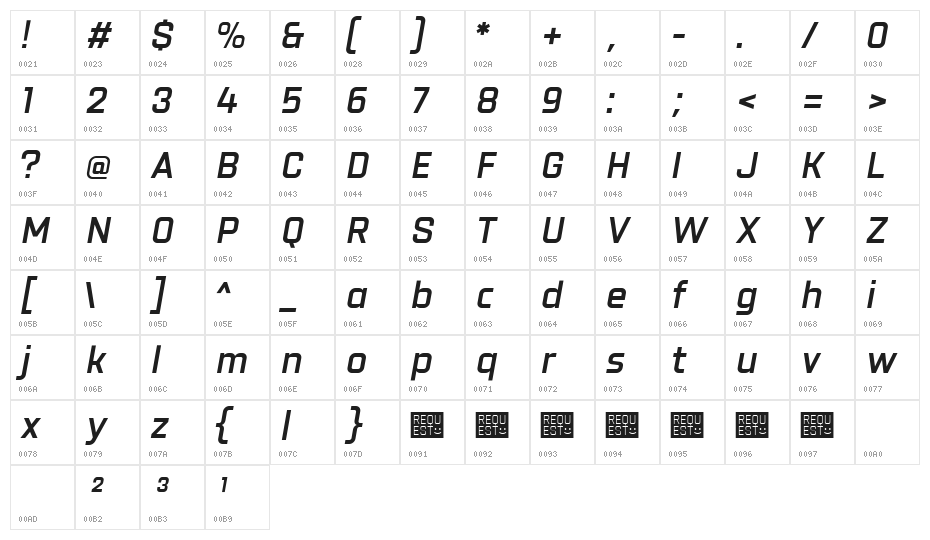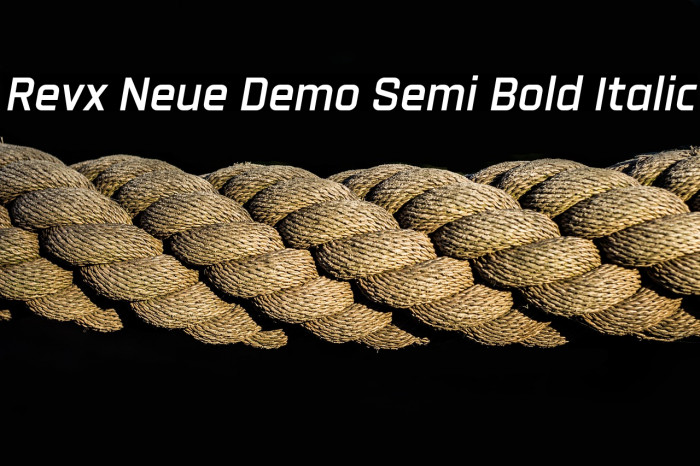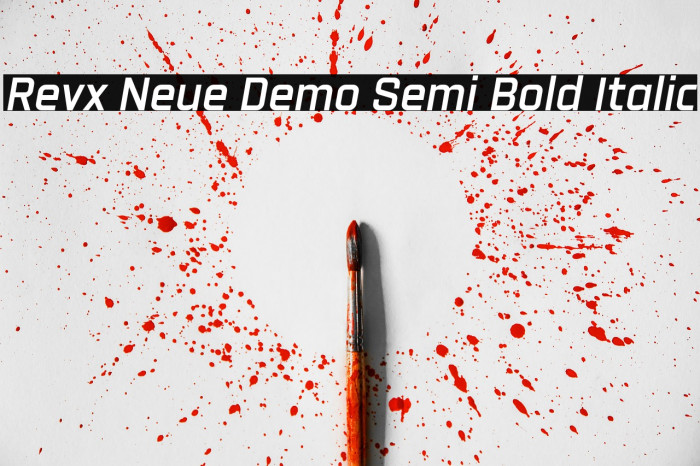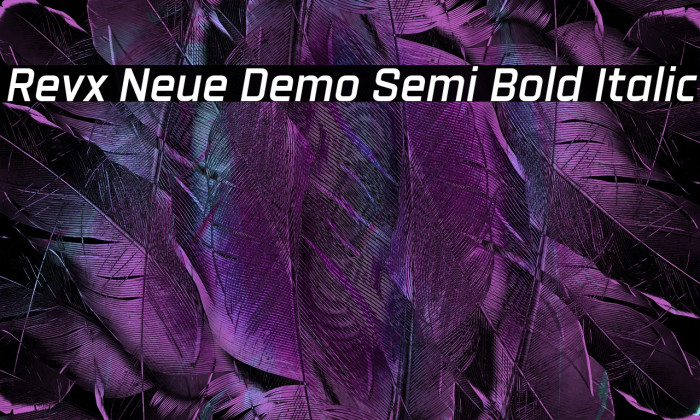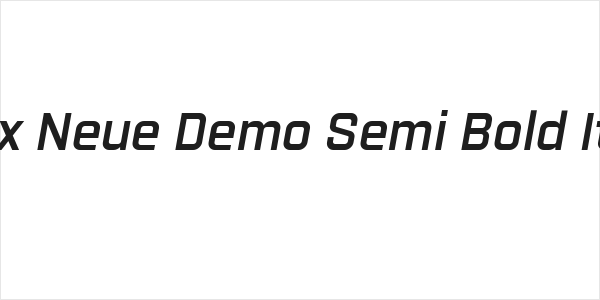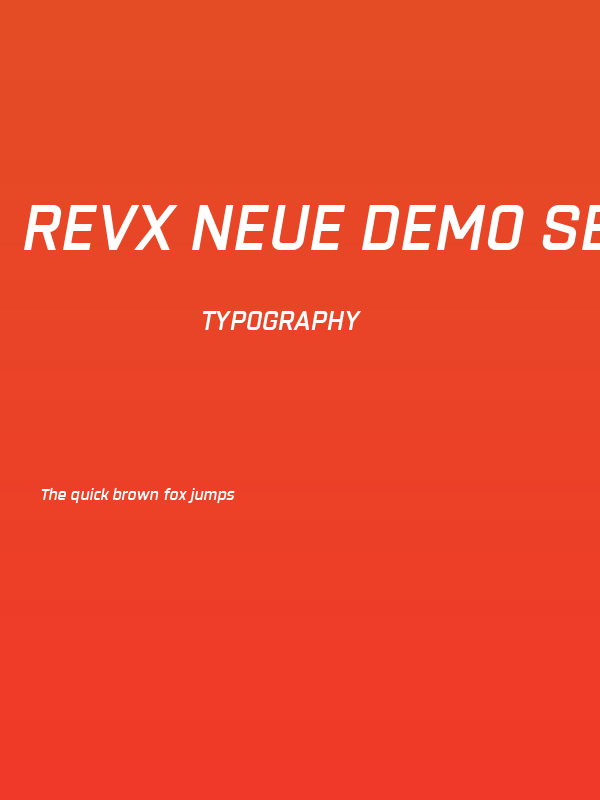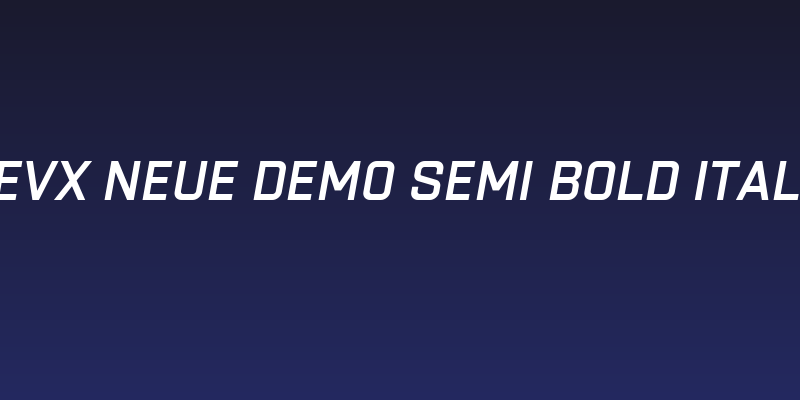
Revx Neue Demo Semi Bold Italic Font
Revx Neue Demo Semi Bold Italic Description
This font exhibits a modern and sleek design with a semi-bold weight and italic style. The characters are slightly condensed, giving it a compact appearance while maintaining readability. The strokes are consistent with medium contrast, providing a balanced look that is both professional and stylish. The slanted nature of the italic style adds a dynamic and forward-moving feel, making it suitable for contemporary projects. The font includes a full set of uppercase and lowercase letters, numbers, and a variety of special characters, ensuring versatility in usage.
| Use Case | Headlines, Logos, Digital Media |
| Proposed Projects | Ideal for branding, advertising, digital media, and editorial design where a modern and professional look is desired. |